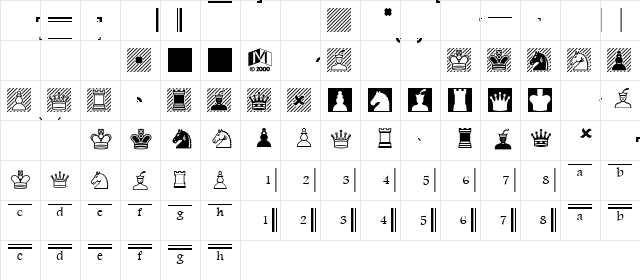
Chess Adventurer Regular
Design Context for Chess Adventurer Typeface
Chess Adventurer is a composed and adaptable typeface that performs quietly and consistently across a wide range of design contexts.